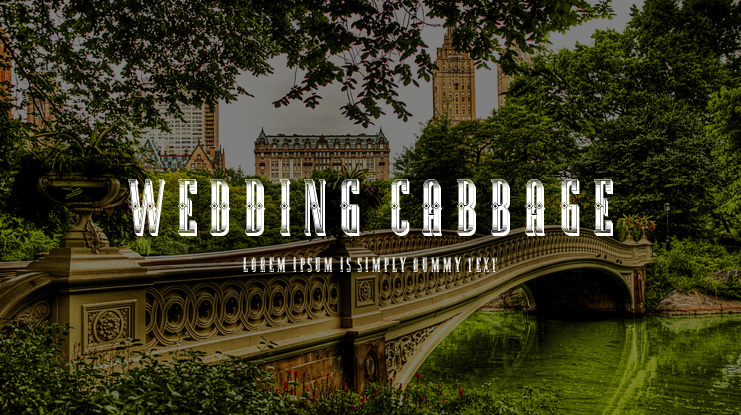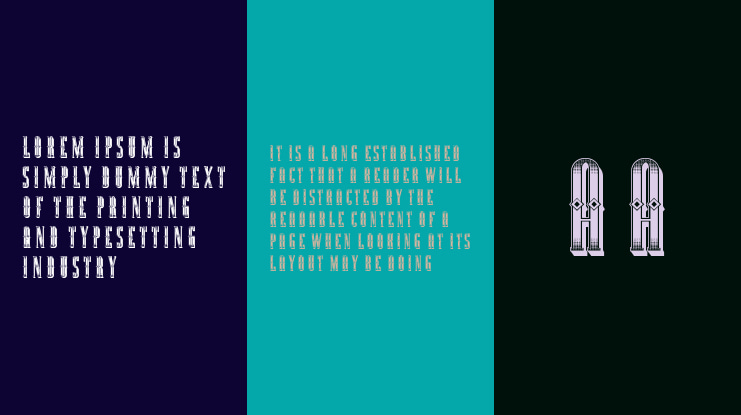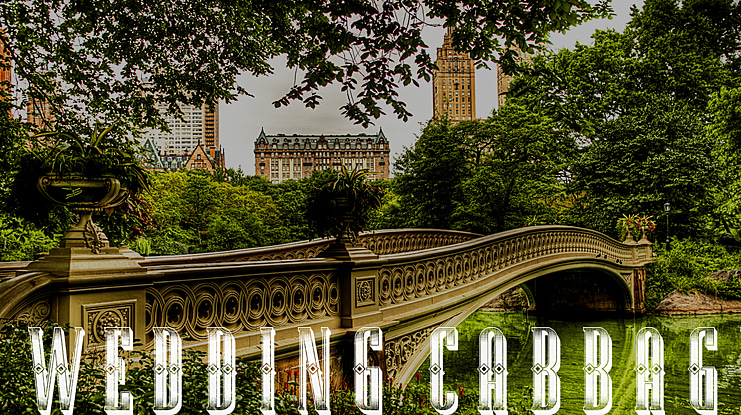
Wedding Cabbage Font
"Wedding Cabbage" is an awesome 3D display font. It features a retro style and it s perfect for adding a nostalgic feel to your designs! Free for personal use. For commercial use, please order a license here: https://www.creativefabrica.com/product/wedding-cabbage/ref/144265/